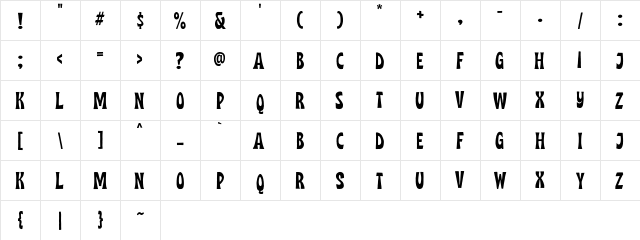
Midgeto DEMO Regular
Design Context for Midgeto DEMO Typeface
Midgeto DEMO takes a measured approach to typography — its balanced proportions and neutral character make it a reliable workhorse for both digital and print work.